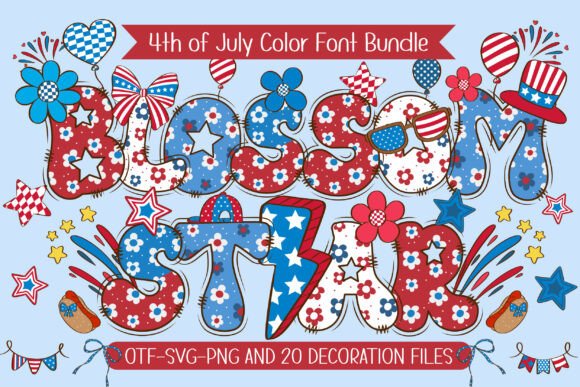
Introducing Blossom Star Font: Celebrate Freedom in Full Bloom this Independence Day
As the 4th of July approaches, we’re excited to introduce the “Blossom Star” font, a stunning Independence Day-themed font that beautifully captures the essence of patriotism and festive charm. This gorgeous font is designed to add a touch of elegance and celebration to your patriotic projects, making it perfect for a wide range of applications.
Unique Design and Features
The “Blossom Star” font boasts a unique design that combines a red, white, and blue color palette with delicate floral patterns, evoking the spirit of celebration and beauty. What makes this font truly special is its thoughtful attention to detail, with select characters featuring star-shaped details that reflect the American flag. This 4-color font is a masterpiece that embodies the essence of the 4th of July in a distinctive and artistic way.
Endless Creative Possibilities
The “Blossom Star” font is incredibly versatile and can be used for a variety of creative projects, including:
- Patriotic posters and quotes
- T-shirts and apparel
- Party invitations and banners
- Stickers and scrapbook pages
- DIY crafts and decorations
Whether you’re a crafty DIY enthusiast, a small business owner, or a professional designer, this font offers endless possibilities for creative expression.
20 Matching Doodle Cliparts
To complement the “Blossom Star” font, we’ve included 20 matching doodle cliparts that will add an extra touch of style and sparkle to your festive creations. These cliparts can be used to enhance your designs, making them more visually appealing and engaging.
Celebrate Freedom in Style with Blossom Star Font
The “Blossom Star” font is an exceptional addition to any designer’s collection, offering a unique blend of patriotism, celebration, and artistic charm. With its delicate floral patterns, star-shaped details, and 4-color design, this font is sure to make your 4th of July projects stand out.